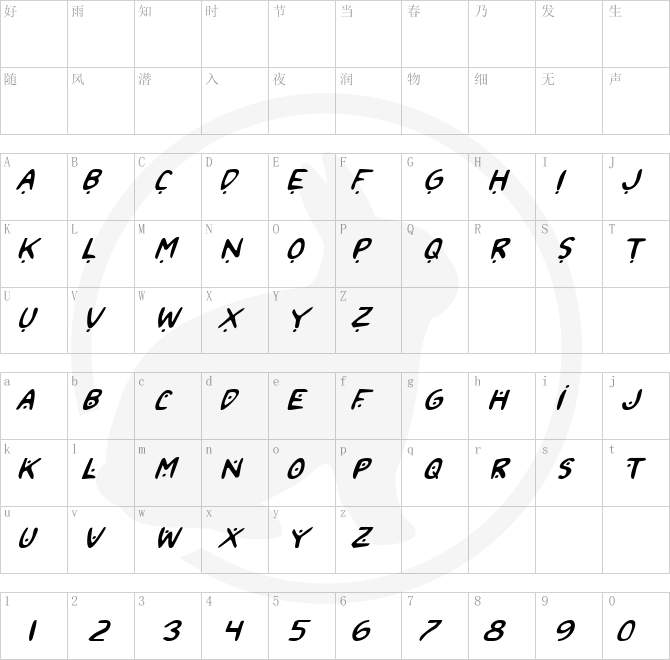
- Font Name:2Toon2 Italic
- Subfamily:2Toon2 Italic
- Full Name:2Toon2 Italic
2Toon2-Italic.ttf is a very beautiful artistic font, 2Toon2-Italic.ttf is widely used in the design and printing of various books and pictures,2Toon2-Italic.ttf has a strong visual impact,2Toon2-Italic.ttf is a commonly used font in newspapers, magazines and books, and is used in posters, e-commerce Poster design, store design, logo design, font design and other fields.2Toon2-Italic.